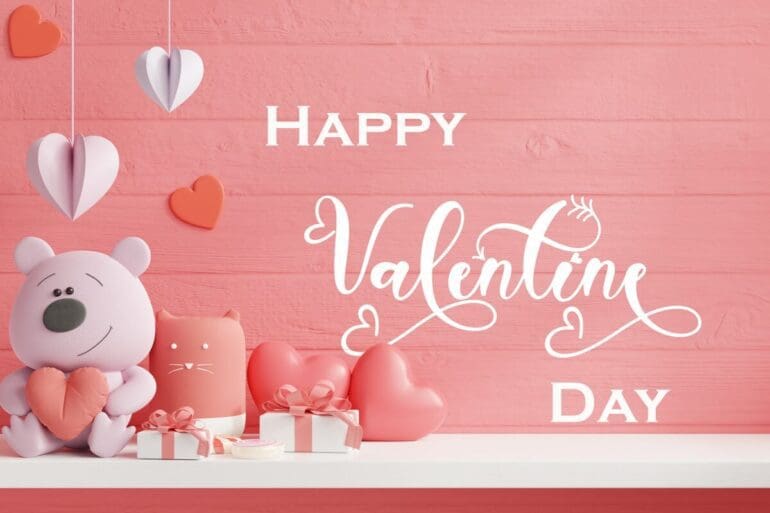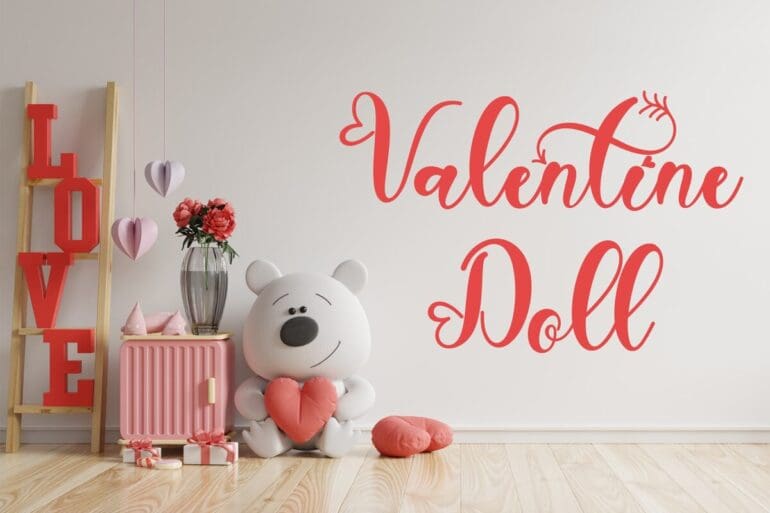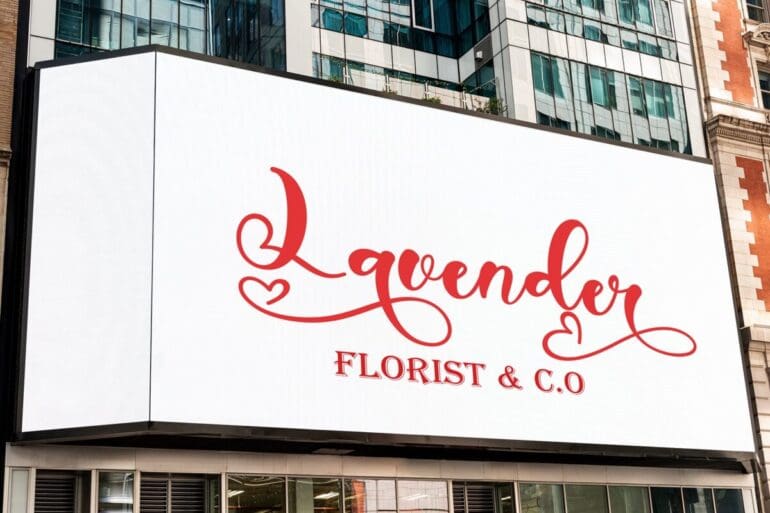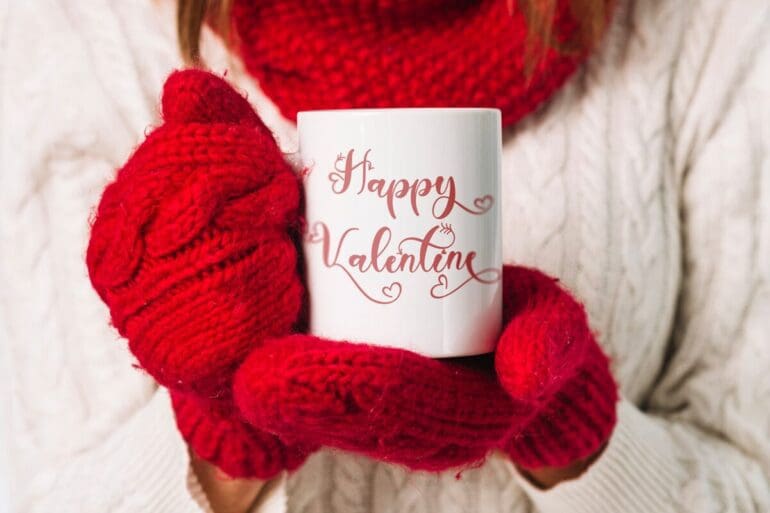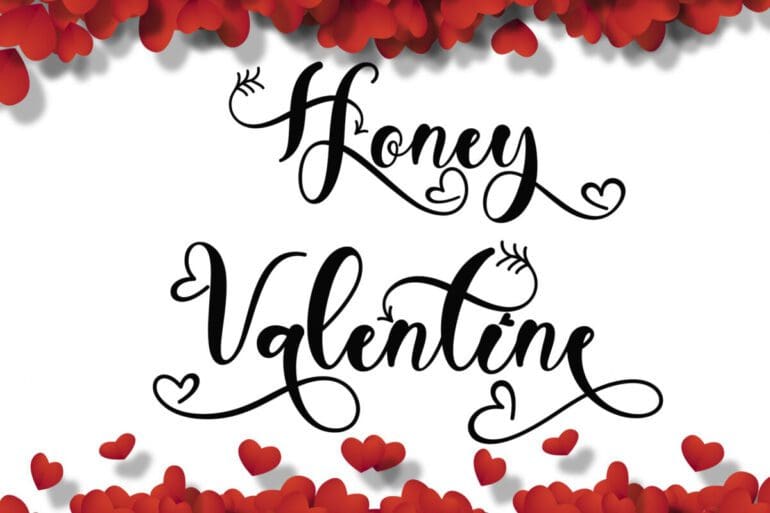
Honey Valentine Font
Honey Valentine is a beautiful and unique Calligraphy font. This font can be used for all your work and needs, especially those related to Valentine’s Day, weddings, winter, christmas, photography, engagement, promotions, and others. This font is very easy to use because it has been specially designed, and there is also a guide for using letter decoration in the preview. This font is equipped with swashes, alternates, basic characters, multilingual support, ligatures, numerals and punctuations.